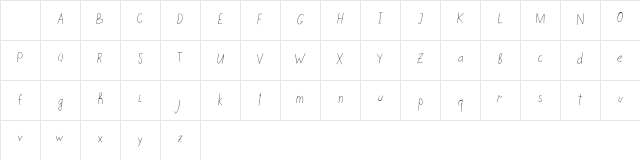
Embarla Firgasto Handwritten flows with the natural rhythm of handwritten lettering, making it ideal for designs that call for warmth and personal expression.
Font Pairing: Combine Embarla Firgasto Handwritten with a simple geometric sans for maximum contrast - the tension between flowing curves and clean structure is a classic typographic pairing.
Pro Tip: Use Embarla Firgasto Handwritten for short runs of text - names, titles, or taglines. Extended body copy in script faces tires the eye quickly.